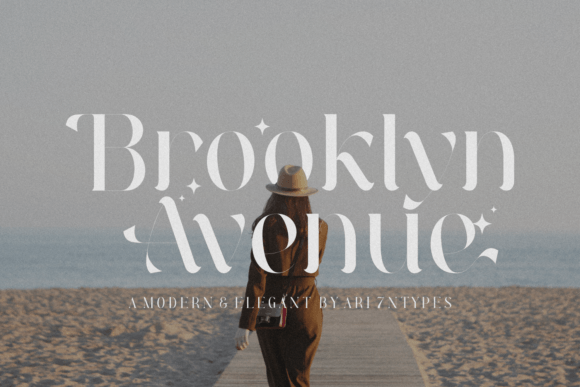
The Brooklyn Avenue Font: Elevate Your Designs with Elegance
Have you ever been in the middle of a design project, and suddenly, you’re stuck on finding the perfect font? I recall a particularly frustrating experience while working on a luxury branding project for a high-end fashion client. The brief required a serif font that exuded sophistication and elegance, but nothing seemed quite right. That was until I discovered the Brooklyn Avenue font. This exquisite serif font has been a game-changer for my designs, and I’m excited to share its beauty with you.
A Closer Look: What Makes Brooklyn Avenue Special
Brooklyn Avenue is a deluxe serif font crafted with meticulous attention to detail. Its elegant curves and finely crafted serifs make it perfect for high-end branding or editorial layouts. The font comes in a range of weights and styles, offering versatility for various design projects. What sets it apart is its PUA encoding, allowing easy access to amazing glyphs and ligatures.
• ✨ Elegant and sophisticated design
• ✅ Meticulous attention to detail
• 💫 Range of weights and styles for versatility
• 🔥 PUA encoded for easy access to glyphs and ligatures
While Brooklyn Avenue is an exceptional font, there are a few minor considerations:
• ⚠️ Some users might find the font too ornate for certain projects
• 🤔 Limited availability of condensed or extended styles
The Designer Inspiration Behind Brooklyn Avenue
Brooklyn Avenue was designed with the goal of creating a font that embodies the essence of luxury and sophistication. The designer aimed to craft a font that would be perfect for high-end branding, editorial layouts, and other projects where elegance is paramount. The result is a font that exudes refinement and poise.
Q: What makes Brooklyn Avenue unique?
A: Brooklyn Avenue is unique due to its elegant curves, finely crafted serifs, and range of weights and styles. Its PUA encoding also allows for easy access to glyphs and ligatures.
Q: Is Brooklyn Avenue easy to read?
A: Yes, Brooklyn Avenue is designed to be elegant and refined, making it suitable for body text and long-form content.